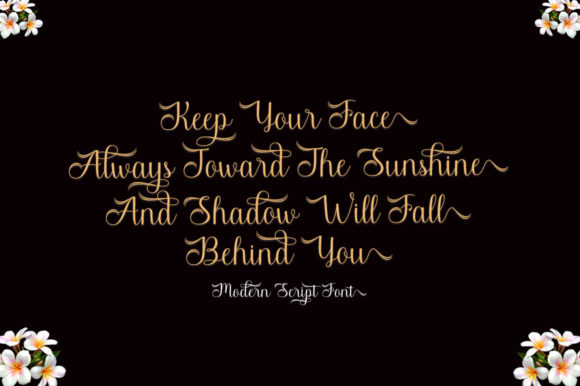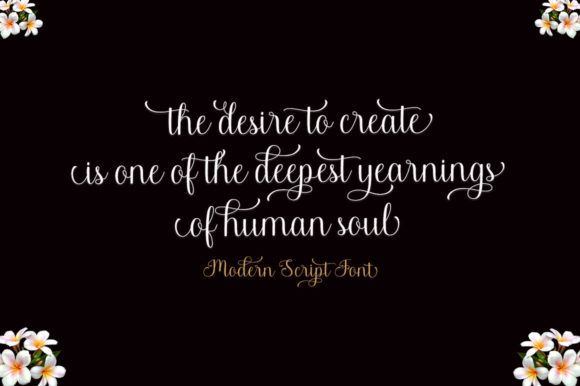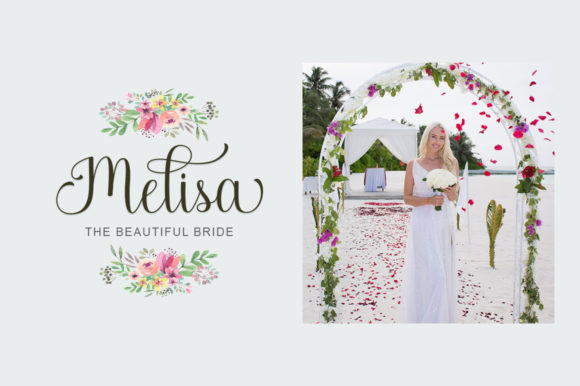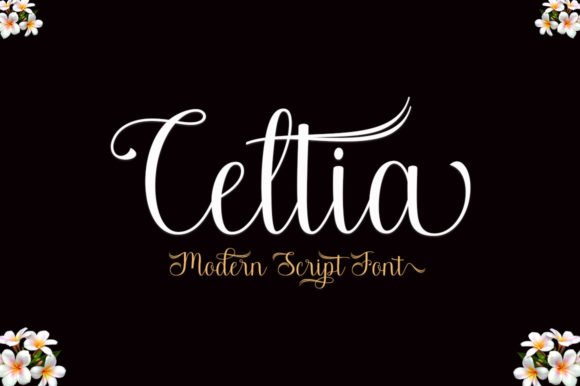
Introduction to Celtia Font
Celtia is a unique and elegant handwritten font.
It looks beautiful on a variety of designs requiring a personalized style, such as wedding invitations, thank you cards, weddings, greeting cards, logos and so on Celtia is PUA encoded which means you can access all of the glyphs and swashes with ease.
Key Features of Celtia Font